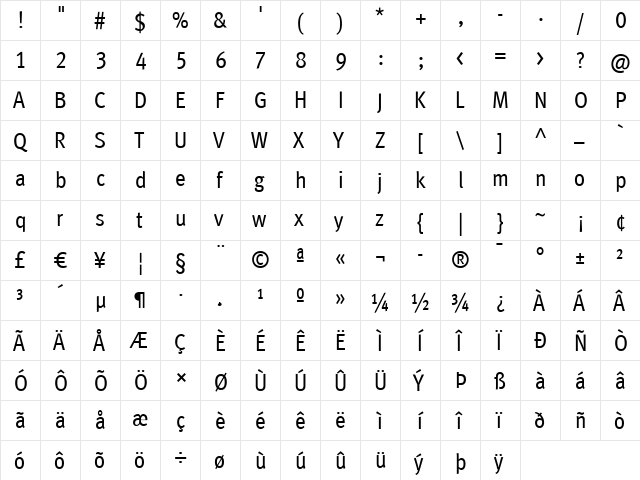
MetaCondBookLF Roman
Design Context for MetaCondBookLF Typeface
MetaCondBookLF is a composed and adaptable typeface that performs quietly and consistently across a wide range of design contexts. Its narrow stance lets it pack a punch even in space-constrained designs.